Paper Lettering Artist, Vera Drmanovski, creates 3D, handmade and three-dimensional paper lettering designs, often paired with stop motion animation, from her base in Toronto, Canada.
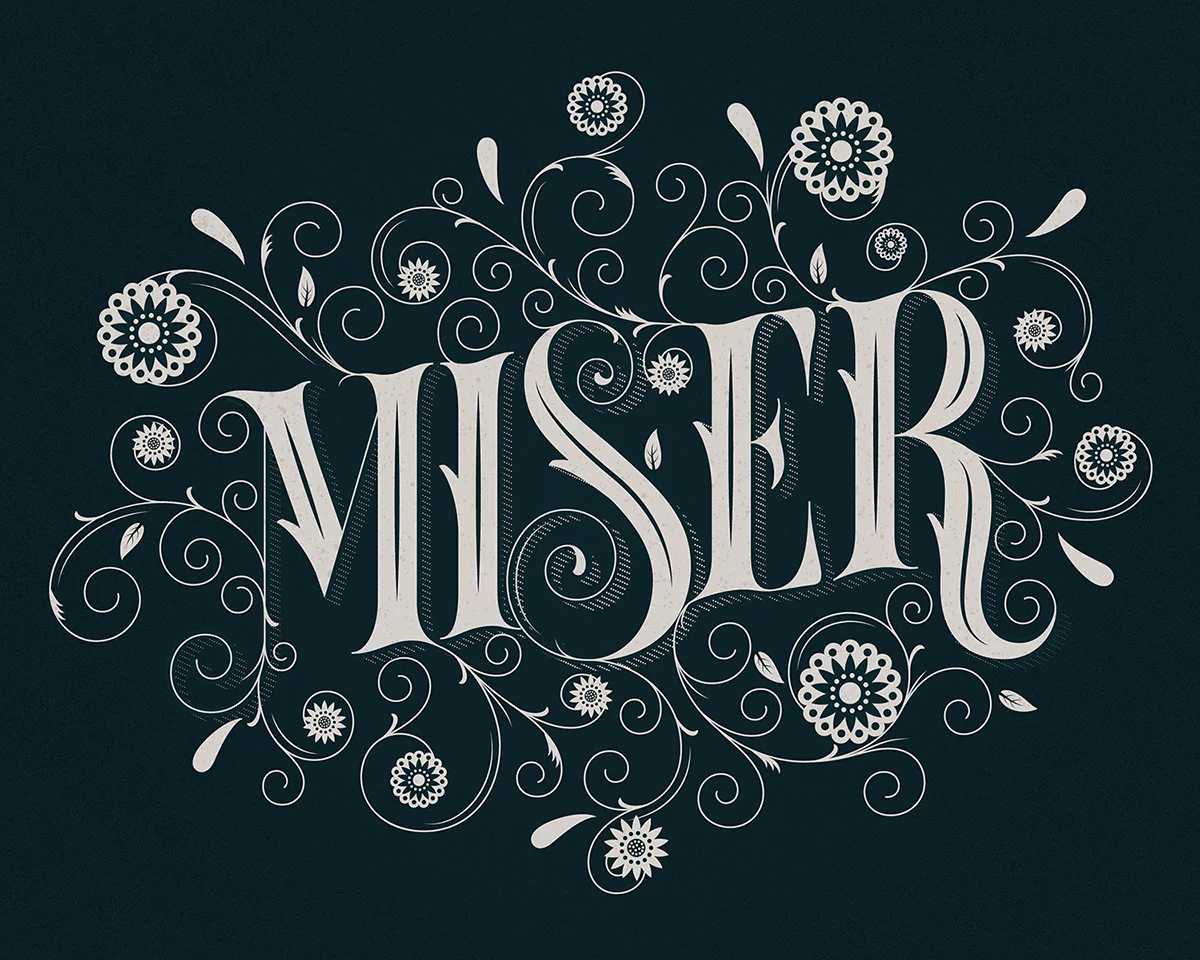
Vera’s work is beautifully letter-centric, featuring bright colours, bold shapes, decorative details and layers. She works with both traditional and digital mediums in order to find the perfect creative solution for her clients, but her signature medium is paper lettering. “Paper medium allows me to create three-dimensional designs that have a natural perception of depth that adds to the overall accessibility of the design” explains the designer on her creative process.
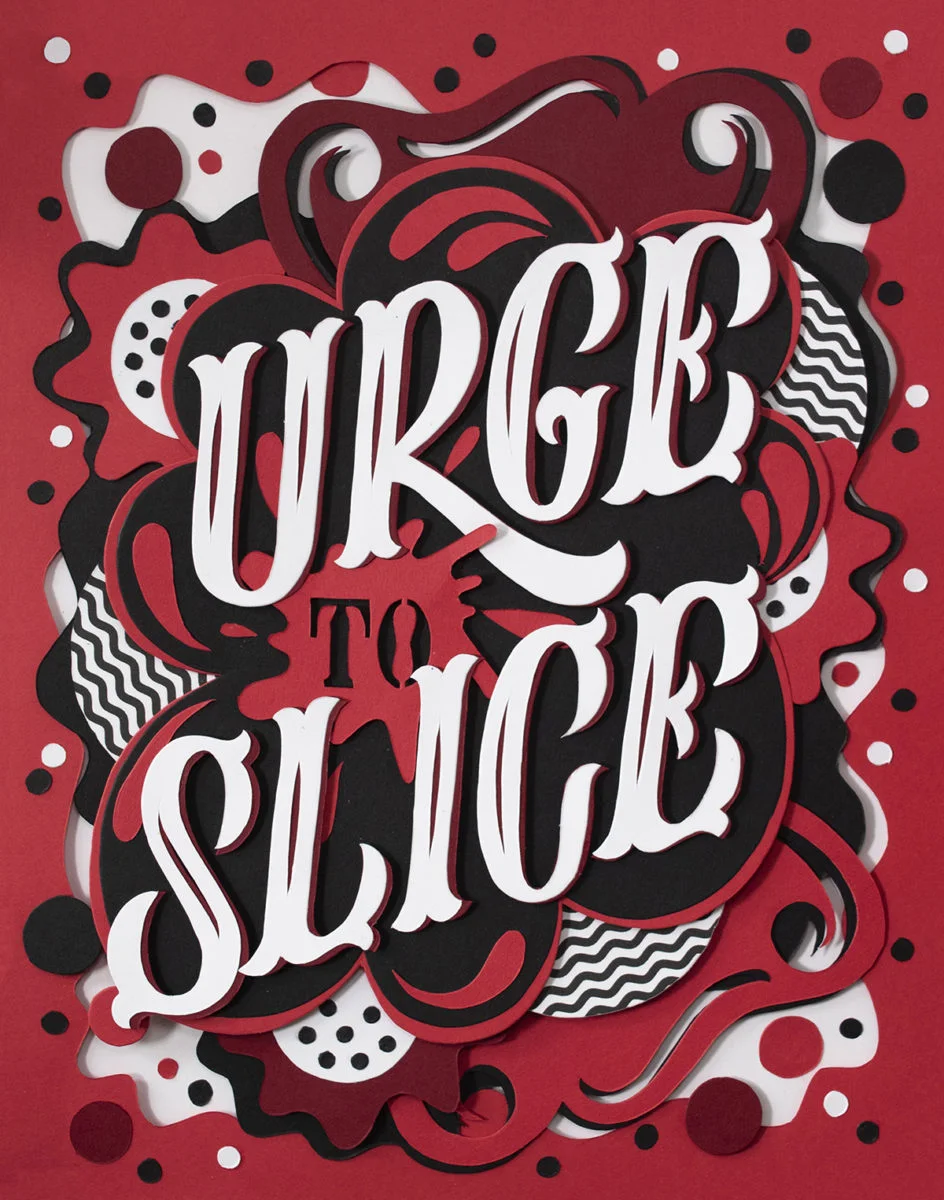
Like any form of design, paper lettering can be used and applied in multiple ways; book and album covers, posters, greeting cards, advertising, social media posts, branding, editorial, event installations and more. The handcrafted technique involved in paper lettering provides an organic and unique aesthetic, often inviting the audience to interact with it, presenting an illusion of 3D space.
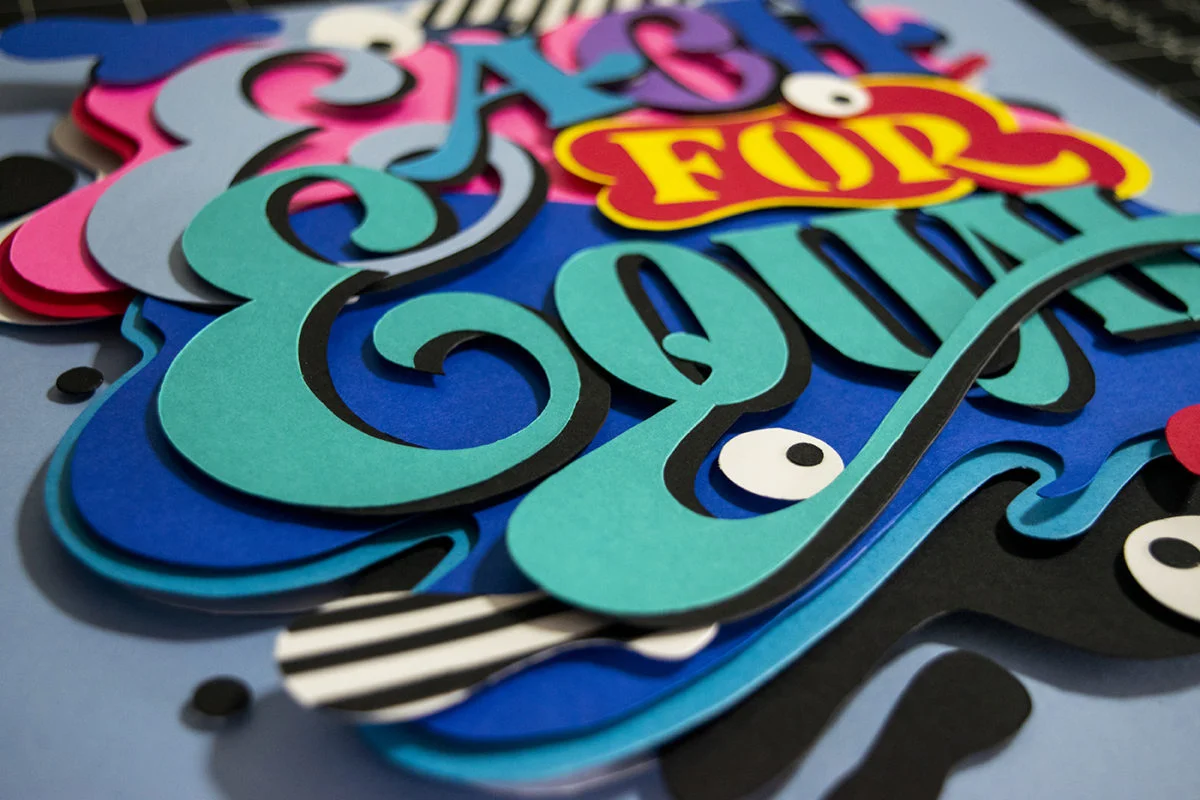
With over 10 years of experience working in the creative industry, Vera has been exposed to many different areas of design; from traditional graphic design and art direction to multimedia projects for events. “Combining all that knowledge and experience allows me to explore many creative possibilities when executing my lettering projects” she describes. During the day she works as a full-time Art Director, and during evenings and weekends, Vera works on building her freelance lettering business.
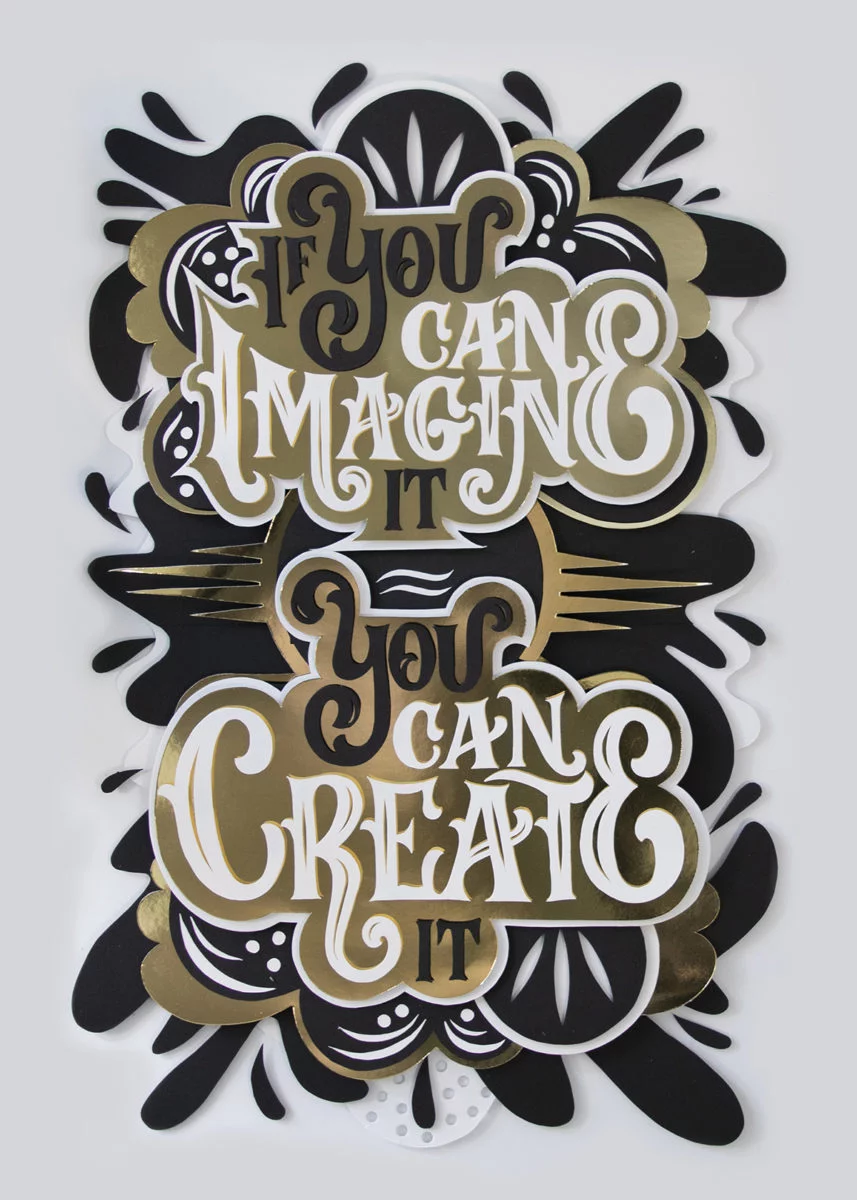
As a big believer in “self-education and self-betterment through self-initiated projects”, her paper lettering is evidently a product of her passions. Vera has produced two large passion projects that have elevated her lettering skills and shaped her voice as an artist: ArtWord of the Week; a collection of 70 beautifully illustrated uncommon English words, and Totally Nuts Paper Cuts; a series of paper lettering posters that shaped her voice as an artist. Her work has also been shown at the typographic exhibition Swash & Serif Toronto in 2018 and 2019 and was published in a Typism book 5 in 2019.